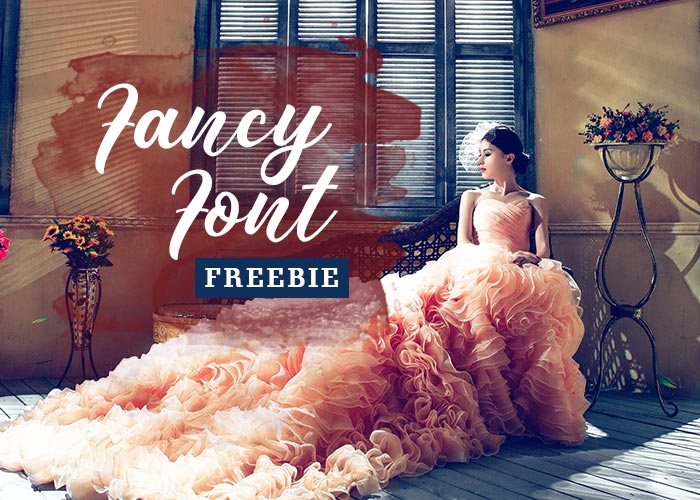
Are you working on multiple design projects that need a fancy, playful touch? Save time searching for the perfect typeface — our Fancy Font Freebie is a carefully handpicked handwritten script from the Senada typeface family, designed to give your work a beautiful and attractive look.
Use it for social media posts, banners, thumbnails, greeting cards and invites, and more. Pair it with your original ideas for versatile, multipurpose designs.
Suggested uses
- Social media graphics and posts
- Banners and headers
- YouTube thumbnails
- Invitations, greeting cards, and stationery
- Branding and packaging mockups
- Any multipurpose design projects where a playful, elegant script is desired